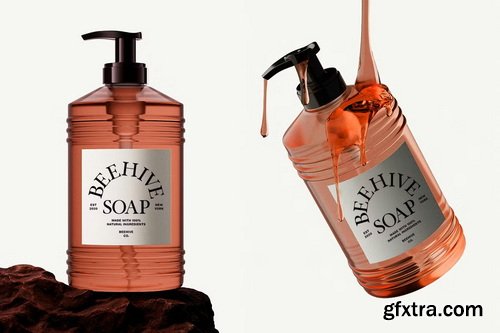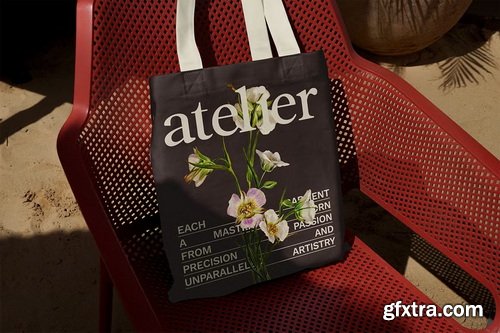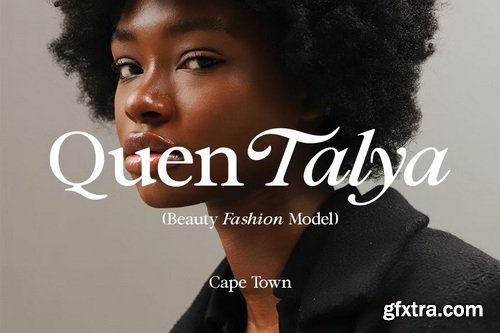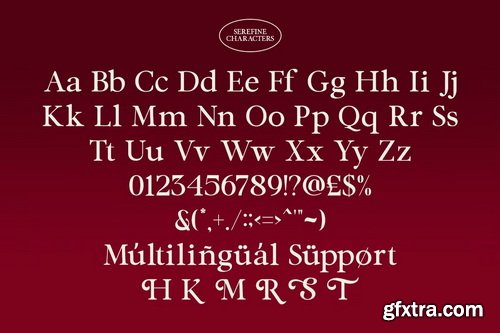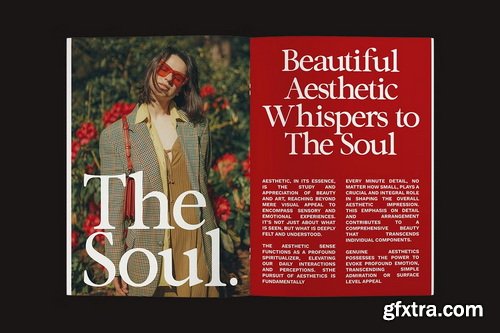
- Serefine is a high-contrast serif typeface that blends classic elegance with modern sophistication. With its graceful curves and refined details, Serefine delivers a romantic yet confident vibe — designed to elevate fashion brands, lifestyle content, and luxury packaging.
- Whether you're working on a stylish Instagram post, a premium logo, or a bridal editorial spread, Serefine adds timeless charm and elevated polish to your designs. This font is made for designers who want to make a statement with every headline and word.
- Serefine’s structure features elegant serif terminals, smooth stroke transitions, and gentle curvature. It includes both Regular and Italic styles, along with a beautiful set of swash alternates to create striking typographic compositions with minimal effort.
What You’ll Love About Serefine: